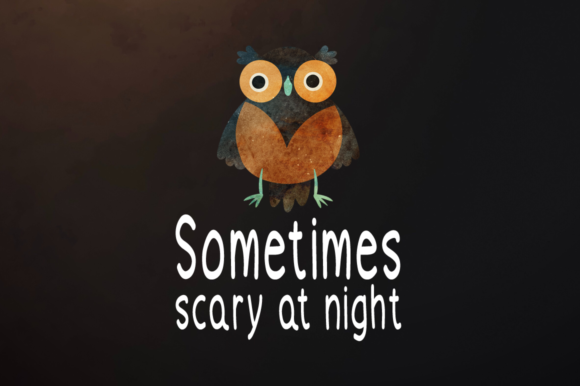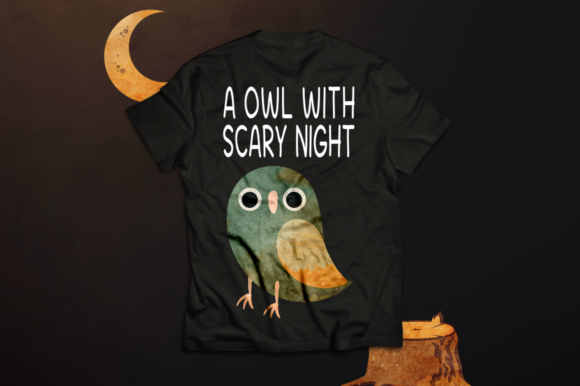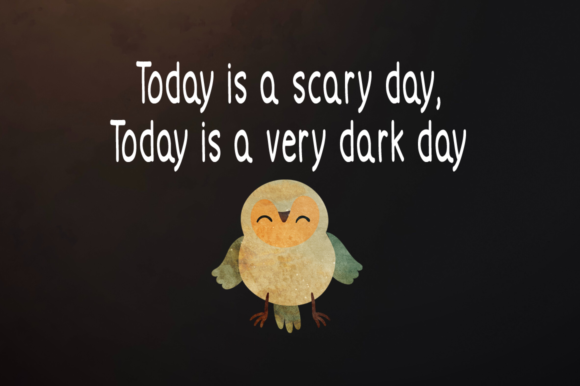
Introduction to Night Owl Font
As a designer, there’s nothing quite like that moment when a creative spark ignites, and a new project starts to take shape. The ideas begin to flow, and the possibilities seem endless. But, we all know that the right design resource can make all the difference in bringing our vision to life. Enter the Night Owl Font, a brand new handwritten font that’s set to revolutionize your creative projects.
This stunning font is perfect for designers looking to add a touch of whimsy and personality to their work. With its high-quality design and transparent background, it’s a versatile tool that can be used for everything from stationery and logos to t-shirts and website headers.
Whether you’re working on a free download or a paid project, the Night Owl Font is an invaluable addition to your design arsenal. So, let’s dive in and explore the world of this amazing font, and discover why it’s set to become a go-to design resource for creatives everywhere.
Key Features of Night Owl Font
- High-quality design resource with a unique, futuristic aesthetic, perfect for creative projects.
- Includes multiple font styles and weights, providing designers with flexibility and versatility in their creative projects.
- Designed with a high-resolution display in mind, with a minimum resolution of 300 DPI for crisp and clear typography.
- Perfect for use in a variety of creative projects, including logos, graphics, and digital displays, due to its futuristic and modern design.
Honest Review: Night Owl Font
I recently had the chance to work with the Night Owl Font, and I must say, it’s been a game-changer for my creative projects. The font is a design resource that offers a high-quality, sleek aesthetic that can elevate any project to the next level.
Here are some things that I think work well with the Night Owl Font:
- ✨ The font is highly versatile, making it suitable for a wide range of creative projects, from branding to digital art.
- ⚠️ The font library could be expanded to include more characters and symbols, making it even more useful for designers.
Overall, I’m thoroughly impressed with the Night Owl Font. Its high quality and versatility make it a valuable addition to any designer’s toolkit. If you’re looking for a reliable design resource, I highly recommend giving it a try – it’s free to download, after all!
Tips for Getting the Most Out of the Night Owl Font
For the best results, use the Night Owl Font with a transparent background to create a sleek and modern look. Experiment with different font sizes and styles to add visual interest to your design.
The Night Owl Font is perfect for a variety of creative projects, including digital invitations, social media graphics, and blog posts. Its high-quality design makes it an excellent choice for any project that requires a sophisticated and modern look.